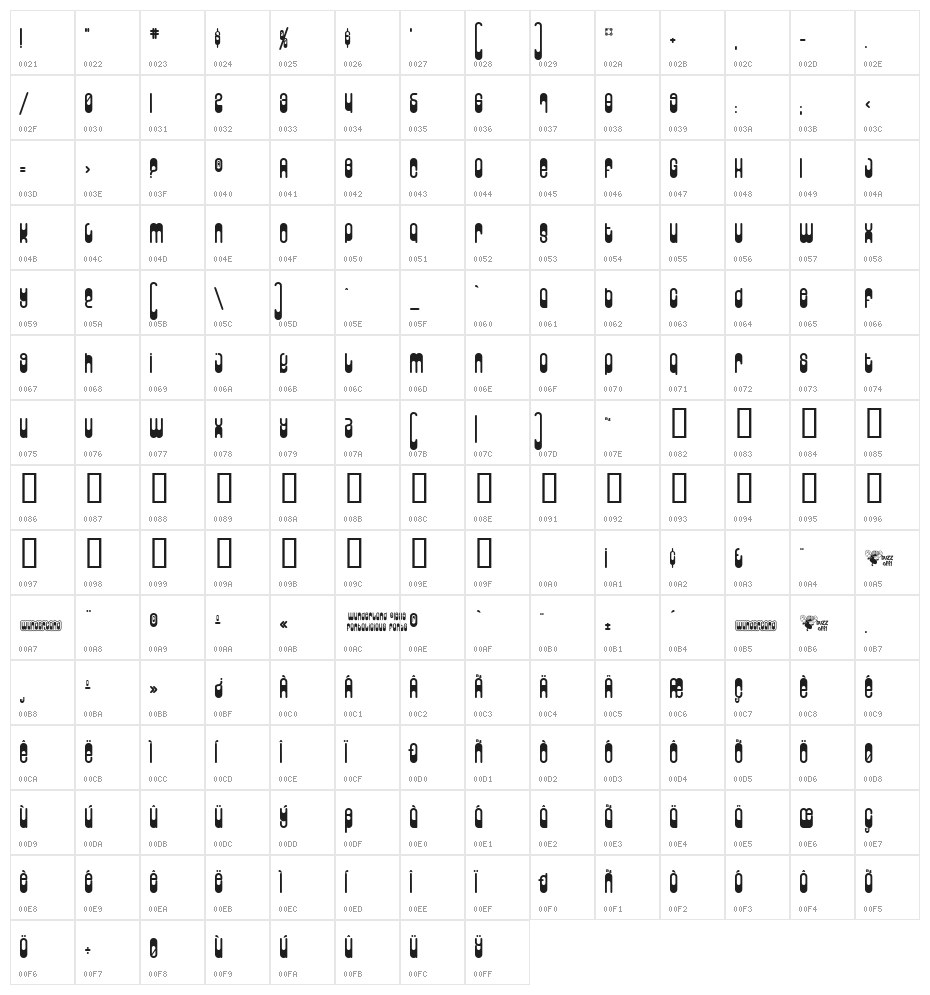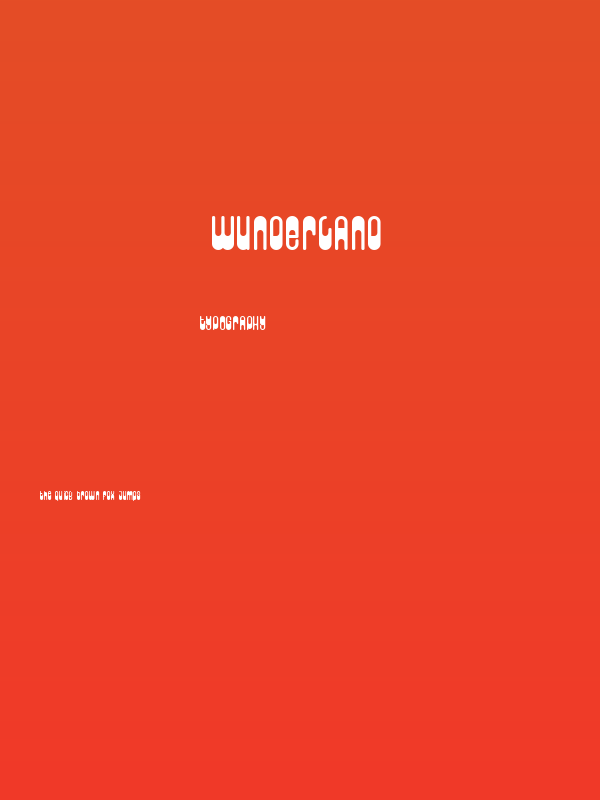
Wunderland Font
Wunderland Description
This font features a bold and modern design with a unique, rounded style. Each character is crafted with a consistent thickness, creating a cohesive and visually striking appearance. The letters have a playful yet sophisticated look, making them stand out in any design. The numbers and special characters maintain the same boldness and rounded edges, ensuring uniformity across all elements. This font is ideal for projects that require a contemporary and eye-catching typeface.
Proposed ProjectsIdeal for branding, posters, and digital media that require a modern and bold aesthetic.